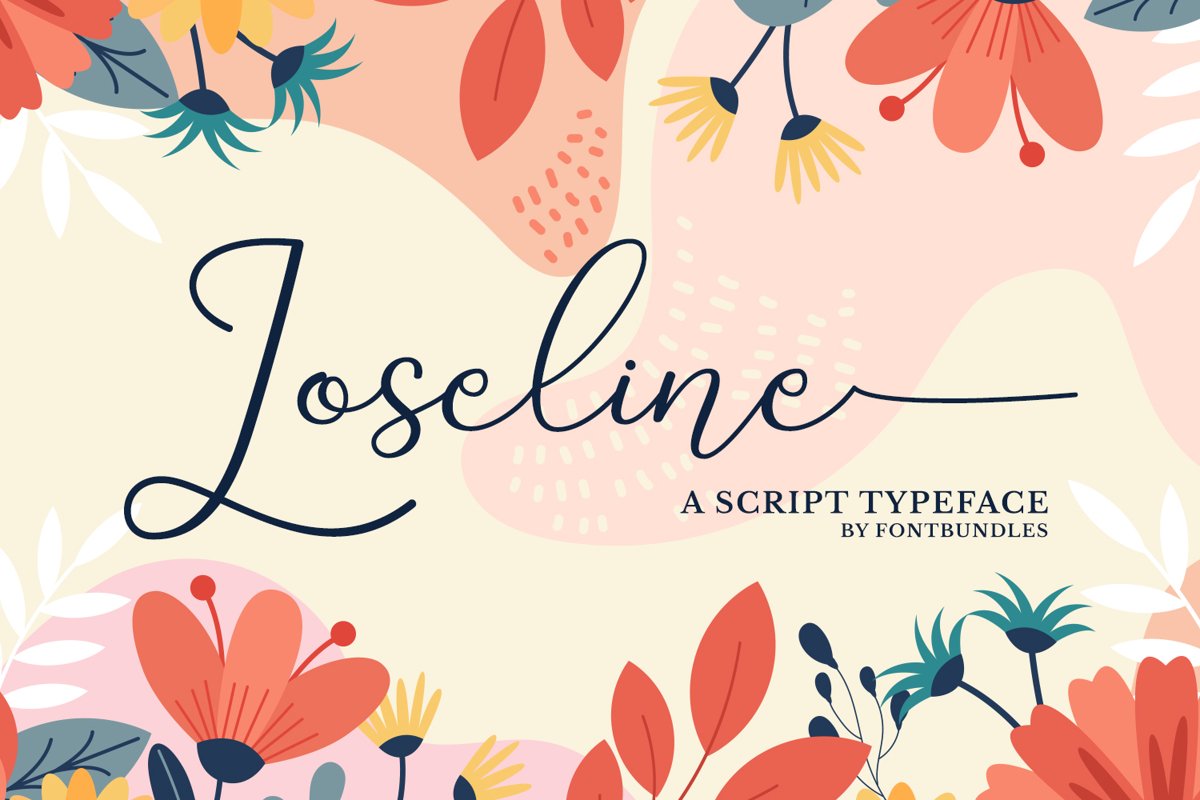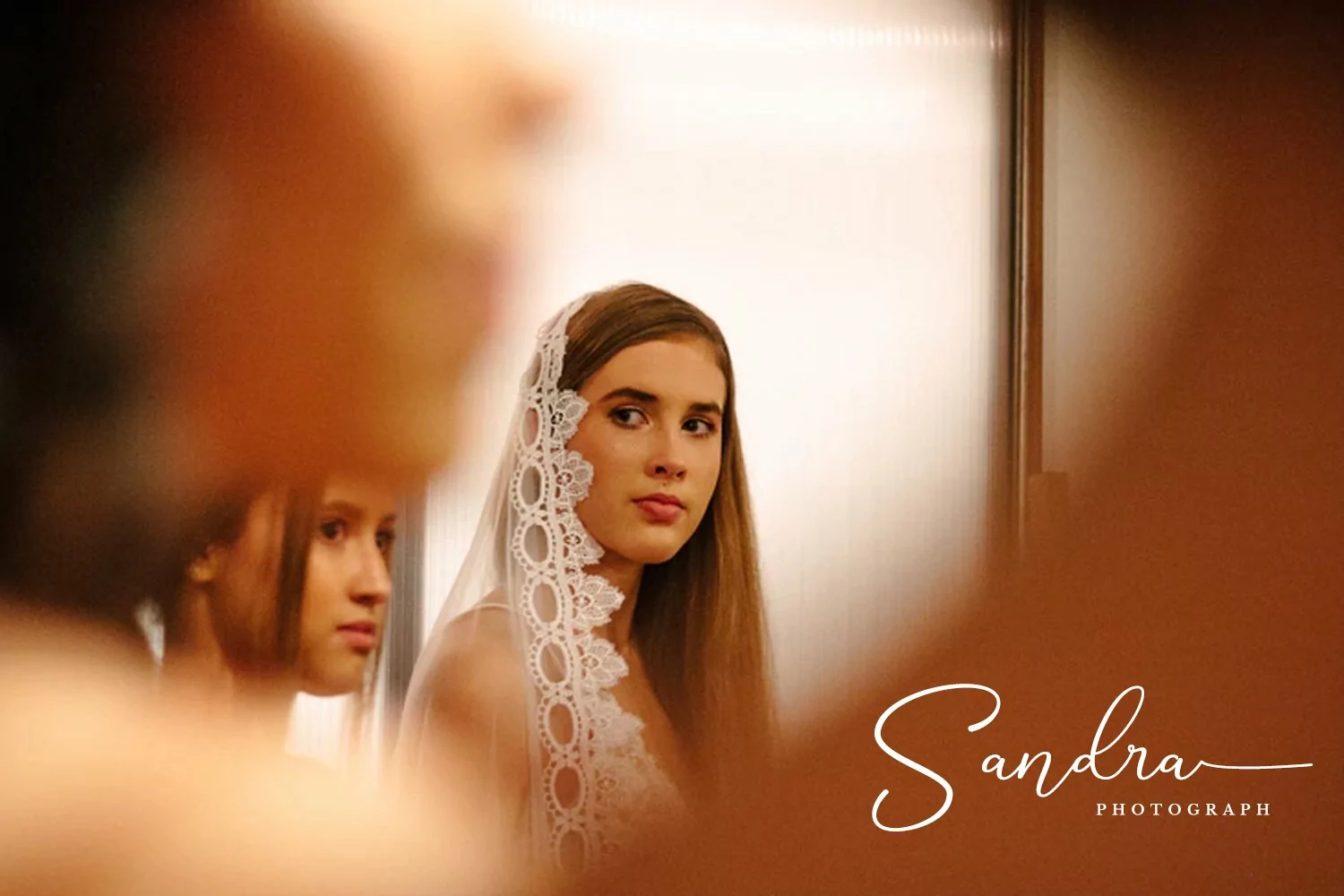
Loseline
Loseline is a script typeface. Perfect for display, branding, logo, logotype, packaging, merchandise, wedding needs, craft needs, signature, business card, and many more.